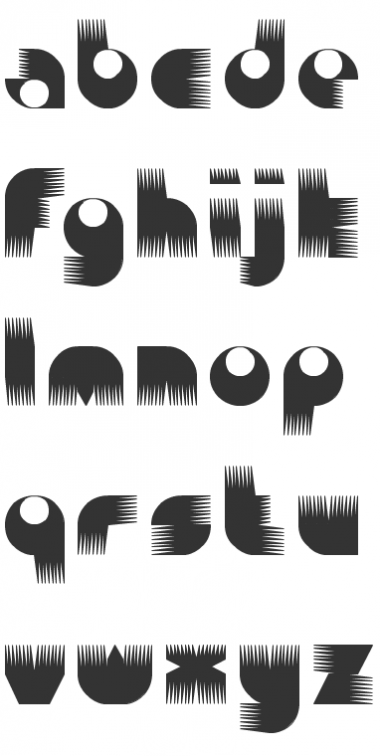
brushland
Reminds me of a beard
What a great effect - I love it.
That's pretty cool.  Best of all: it's original.  I like the use of nice clean circles contrasted against the bristly stems.
Lice dislike^^